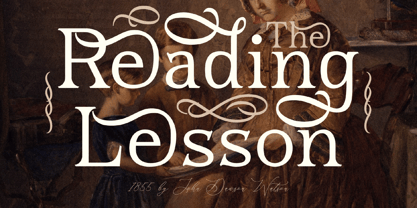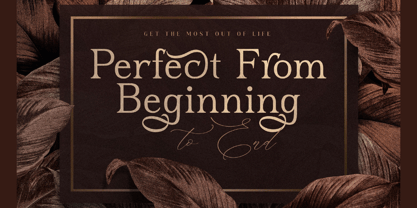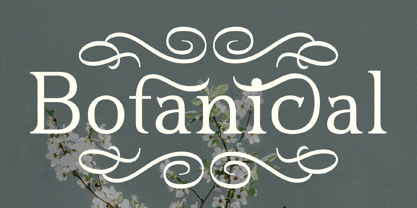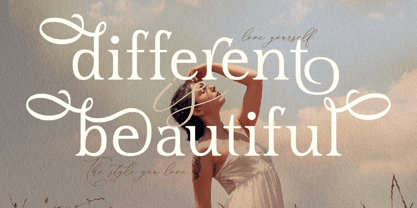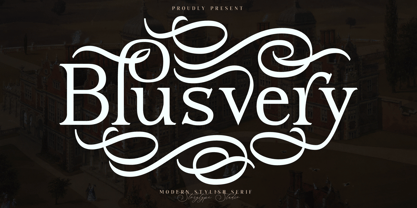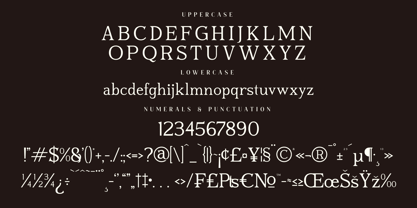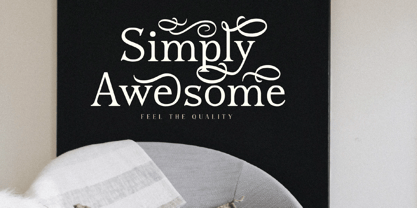
Blusvery
The Blusvery Font Family was designed by Heru Utama Putra and published by Letterena Studios. Blusvery contains 2 styles and family package options.
Blusvery is a serif modern and classic typeface that has its own unique style & modern look.
This typeface is perfect for an elegant & luxury logo, book or movie title design, fashion brand, magazine, clothes, lettering, quotes, and so much more.